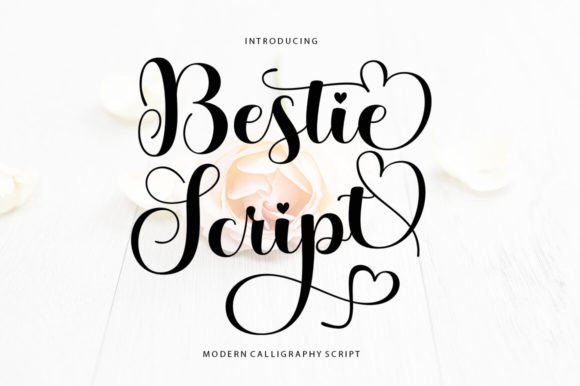
Introducing Bestie Script Font: The Ultimate Modern Script Font for Your Creative Projects
In the world of typography, script fonts have always been a popular choice for designers and creatives looking to add a touch of elegance and sophistication to their projects. If you’re looking for a modern script font that exudes a trendy and feminine style, look no further than Bestie Script Font. In this article, we’ll take a closer look at what makes Bestie Script Font so special and why it’s the perfect choice for your next creative project.
What is Bestie Script Font?
Bestie Script Font is a new modern script font that features an irregular baseline, giving it a unique and eye-catching look. This font is perfect for designers who want to add a touch of whimsy and playfulness to their designs. With its trendy and feminine style, Bestie Script Font is ideal for a wide range of creative projects, from wedding invitations and thank you cards to quotes, greeting cards, logos, and business cards.
Key Features of Bestie Script Font
- Irregular Baseline: Bestie Script Font features an irregular baseline that gives it a unique and eye-catching look.
- Trendy and Feminine Style: This font exudes a trendy and feminine style that’s perfect for designers who want to add a touch of elegance and sophistication to their designs.
- Initial and Terminal Letters: Bestie Script Font includes initial and terminal letters, as well as alternates, giving you a wide range of creative options.
What Can I Use Bestie Script Font For?
Bestie Script Font is a versatile font that can be used for a wide range of creative projects. Here are some ideas to get you started:
- Wedding Invitations: Bestie Script Font is perfect for wedding invitations, adding a touch of elegance and sophistication to your designs.
- Thank You Cards: This font is also great for thank you cards, allowing you to express your gratitude in a stylish and elegant way.
- Quotes: Bestie Script Font is ideal for quotes, adding a touch of whimsy and playfulness to your designs.
- Greeting Cards: This font is perfect for greeting cards, allowing you to create beautiful and eye-catching designs for any occasion.
- Logos: Bestie Script Font can also be used for logos, giving your brand a unique and memorable identity.
- Business Cards: This font is great for business cards, allowing you to create professional and stylish designs that will help you stand out.
Why Choose Bestie Script Font?
So why choose Bestie Script Font over other script fonts on the market? Here are just a few reasons why:
- Unique and Eye-Catching Design: Bestie Script Font features a unique and eye-catching design that will help your designs stand out.
Tips for Using Bestie Script Font
Here are a few tips for using Bestie Script Font:
- Experiment with Different Sizes: Bestie Script Font looks great in a variety of sizes, so don’t be afraid to experiment and find the perfect size for your design.
- Pair with Other Fonts: This font pairs well with other fonts, so try pairing it with a sans-serif font for a stylish and modern look.
- Use for Headings and Titles: Bestie Script Font is perfect for headings and titles, adding a touch of elegance and sophistication to your designs.
- Don’t Overuse: While Bestie Script Font is a beautiful font, it’s best not to overuse it. Use it sparingly to add emphasis and interest to your designs.
In conclusion, Bestie Script Font is a beautiful and versatile modern script font that’s perfect for a wide range of creative projects. With its unique and eye-catching design, trendy and feminine style, and high-quality and professional features, this font is sure to become a favorite among designers. Whether you’re looking to create wedding invitations, thank you cards, quotes, greeting cards, logos, or business cards, Bestie Script Font is the perfect choice.